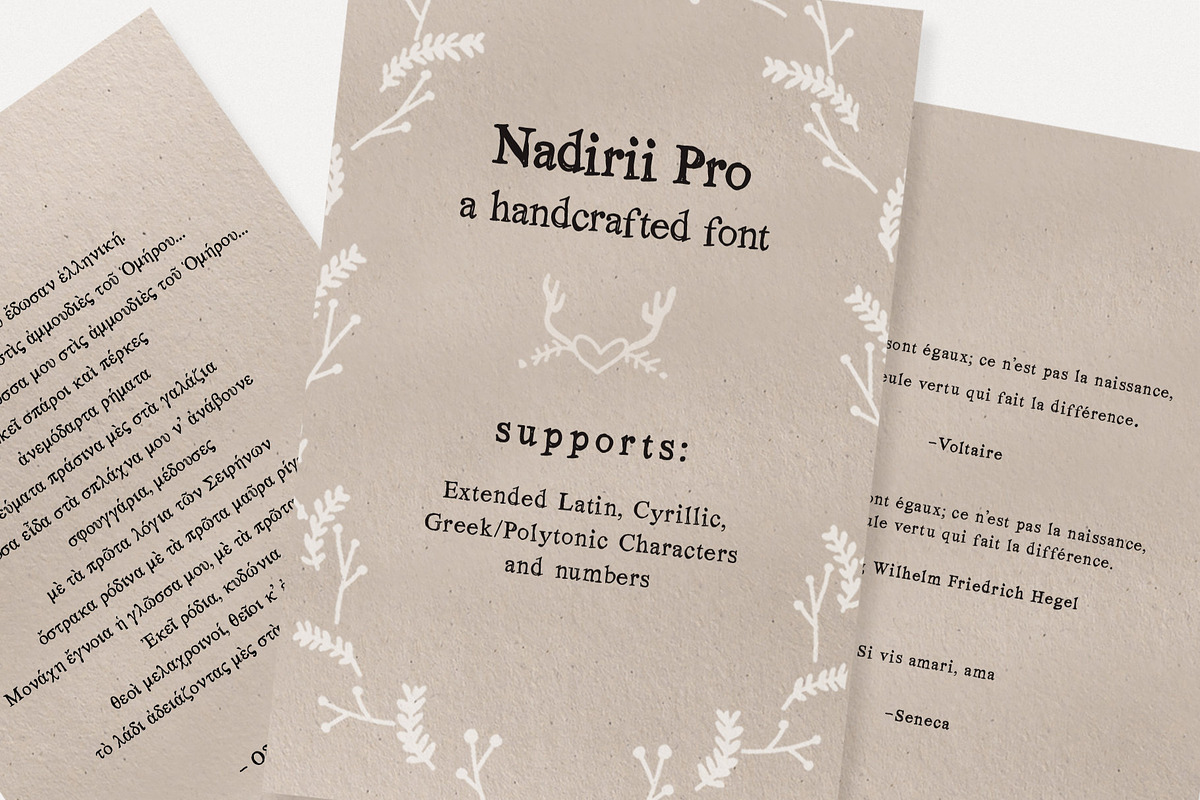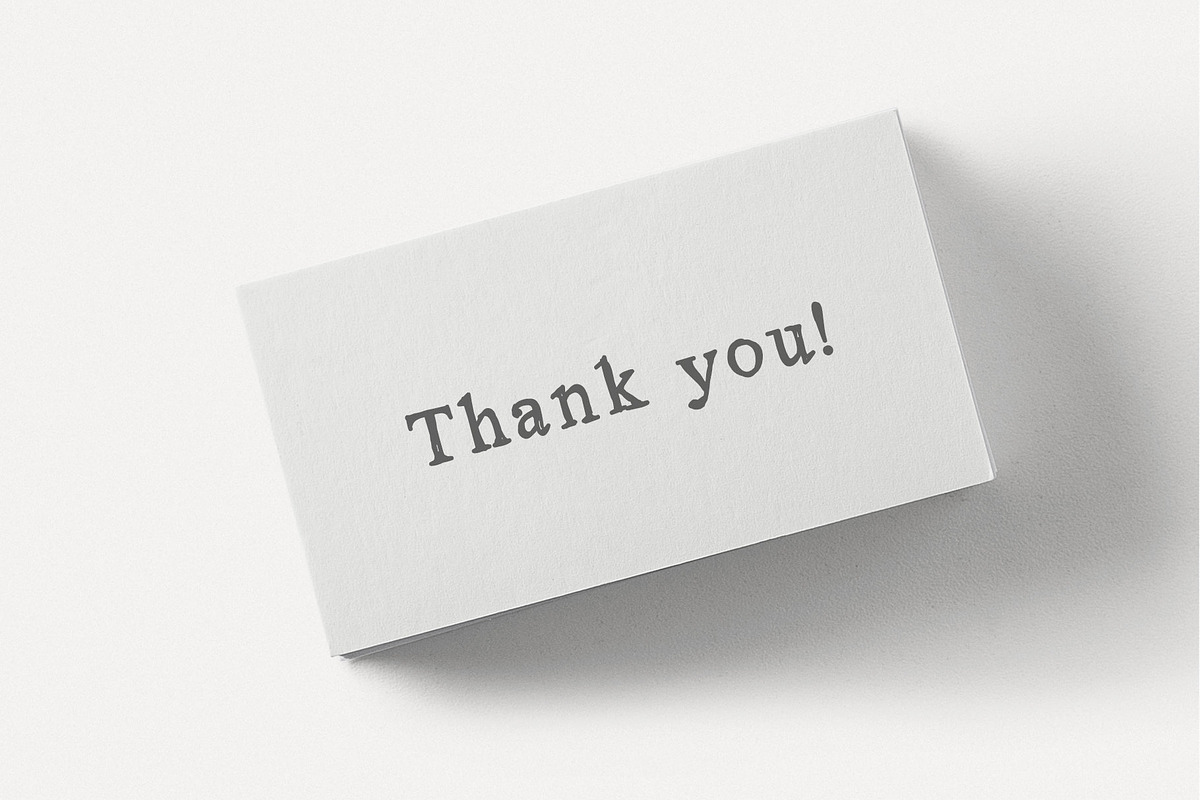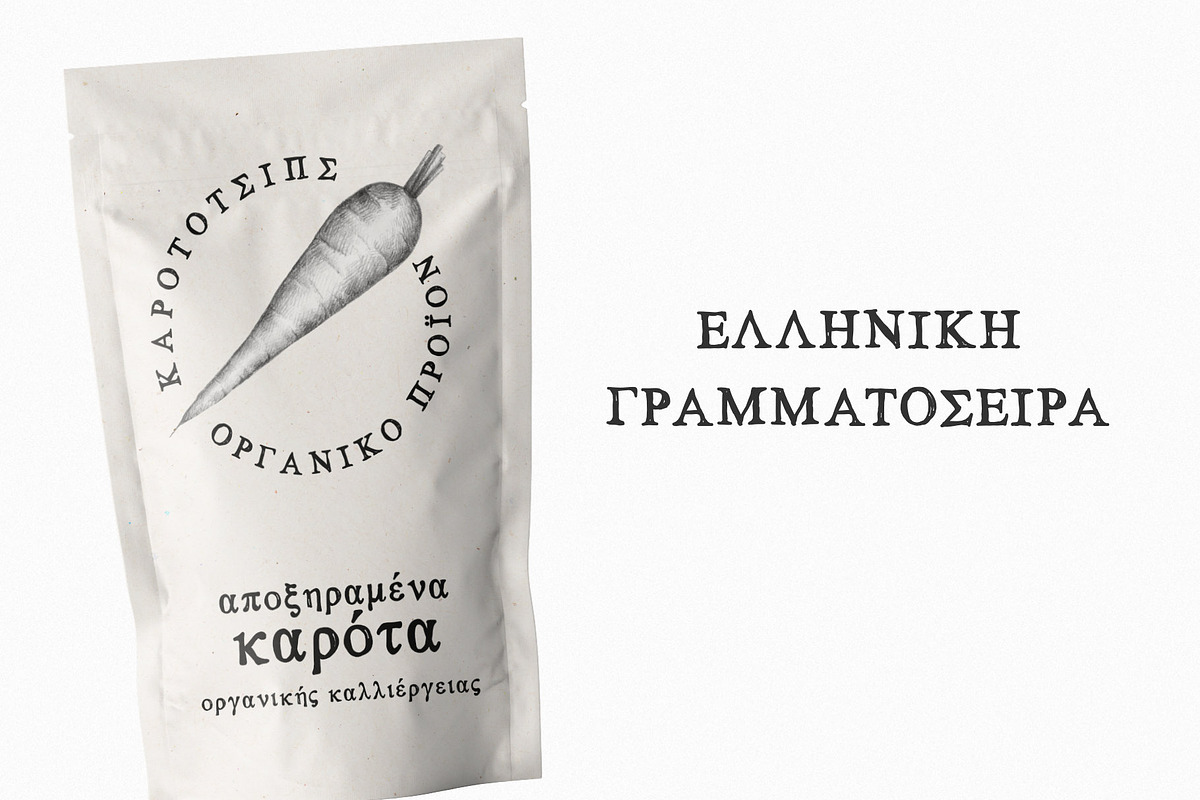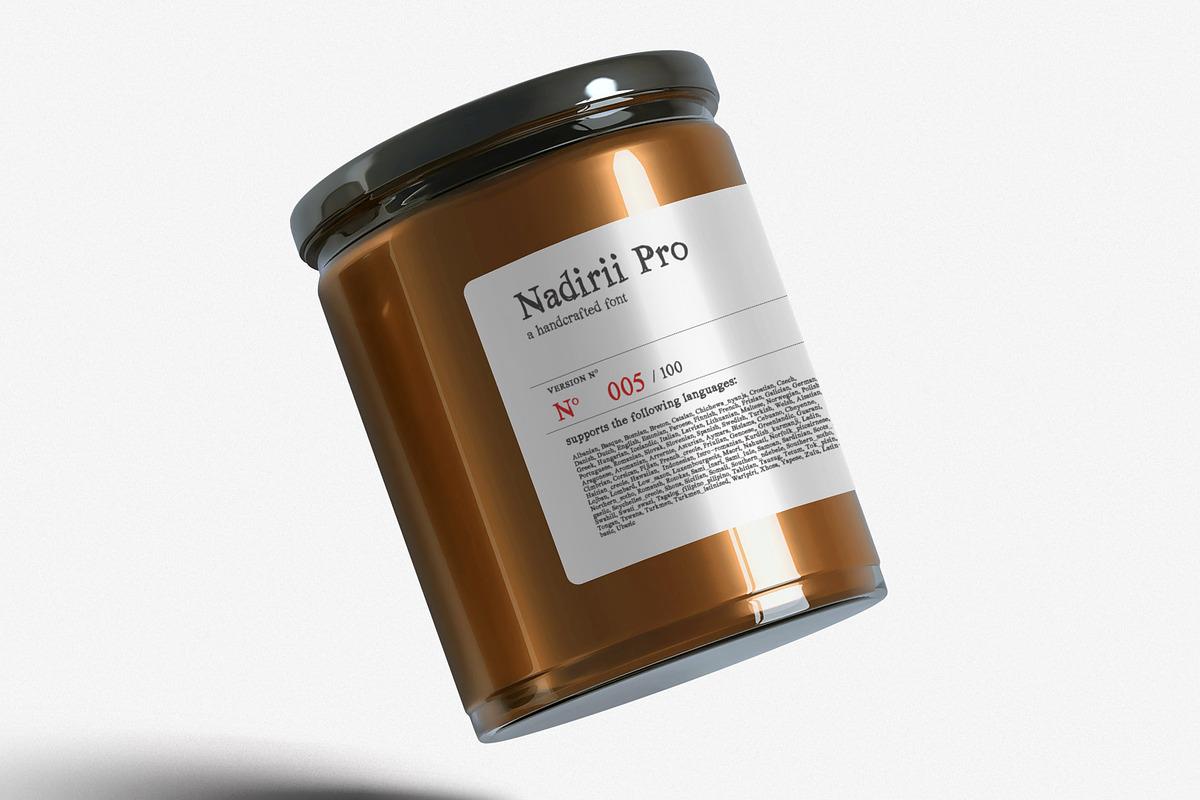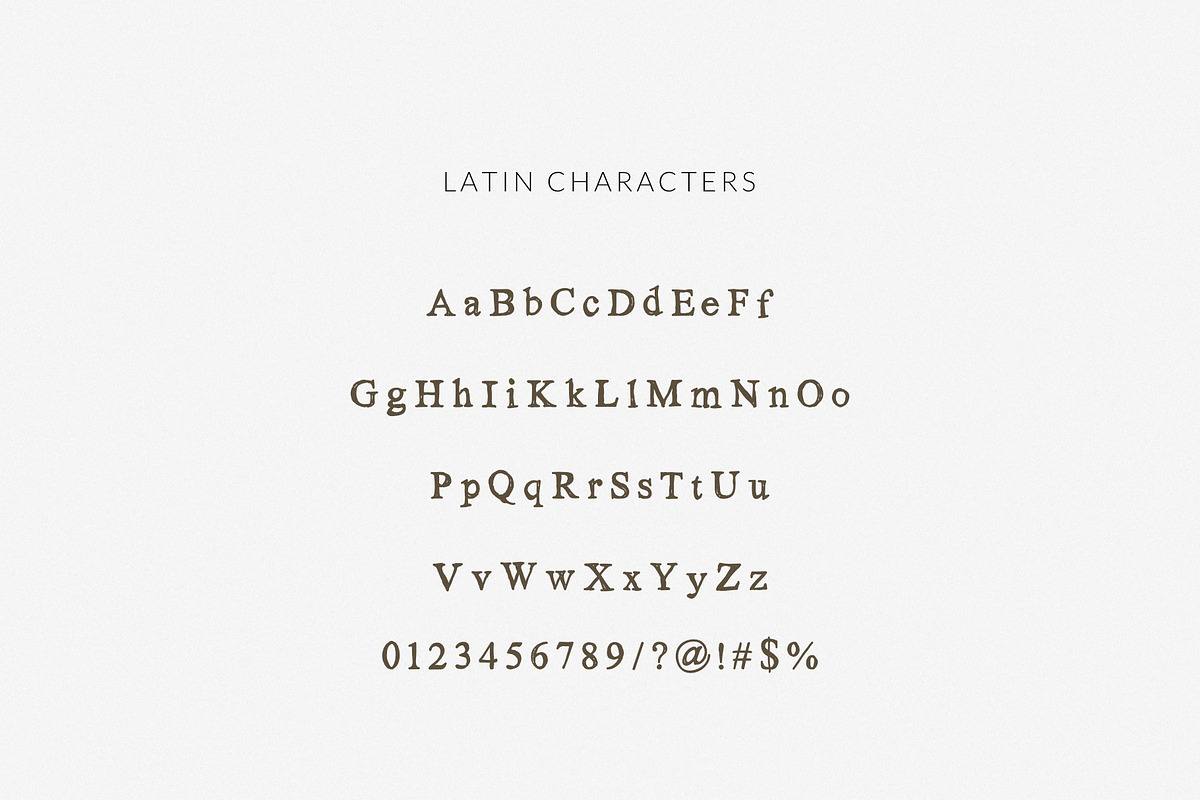
Nadirii Pro Greek, Cyrillic Font
Nadirii Pro Greek, Cyrillic Font by Greek fonts by nantia.co is a font selected for branding, posters, packaging, typography.
- Character set in Extended Latin, Greek, Greek polytonic, Cyrillic, punctuation marks, diacritics, and numbers.
Why Nadirii Pro Greek, Cyrillic Font is worth a look
Nadirii Pro Greek, Cyrillic Font by Greek fonts by nantia.co fits naturally into Branding, posters, packaging, typography.